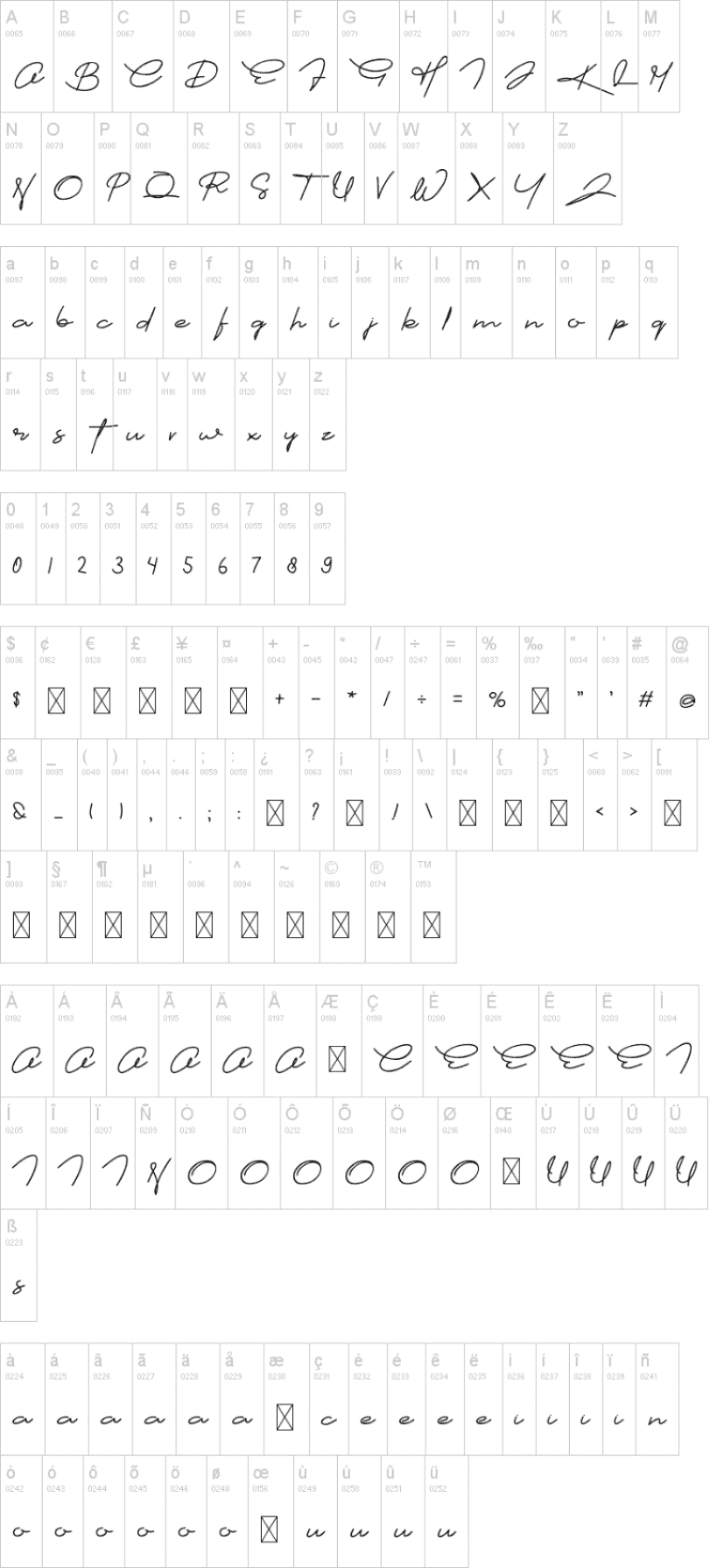
Cartier is a Calligraphy font that is created with high quality and was designed by Graphix Line Studio and can be downloaded free for personal use. available in the free version are all the letters, both upper and lower case, as well as a few special characters.